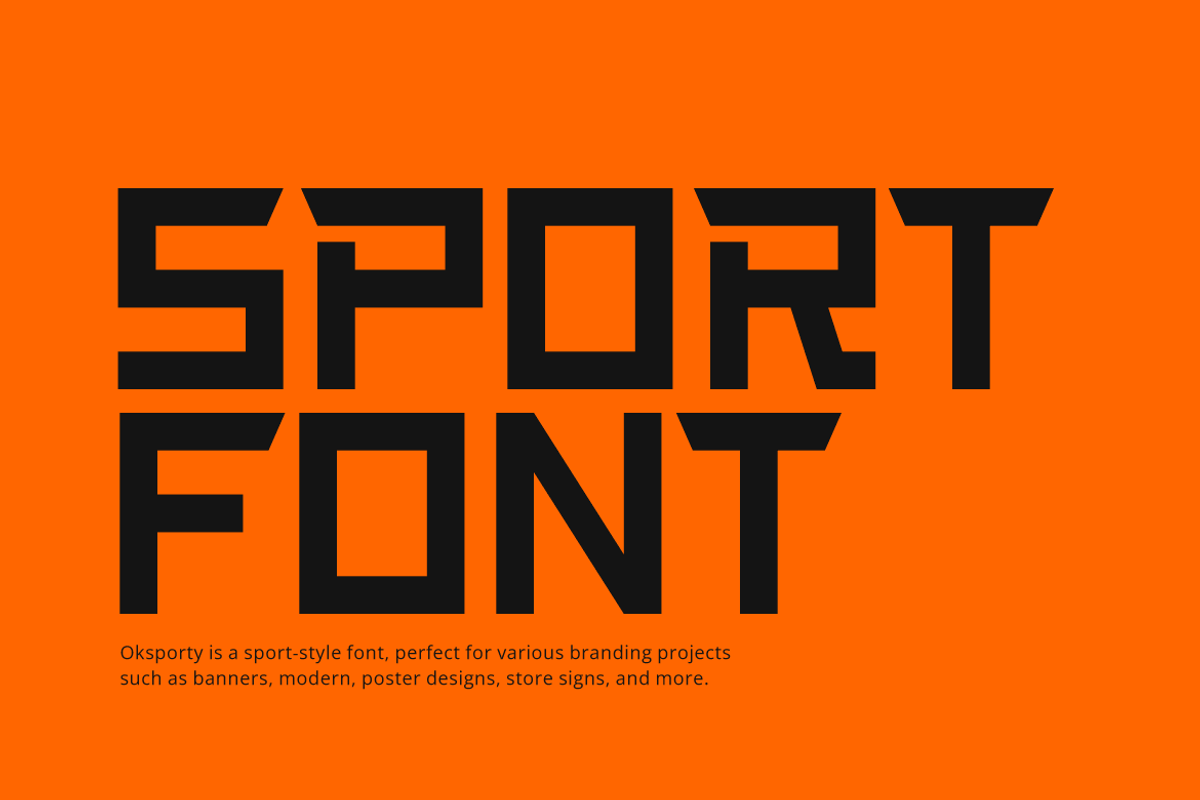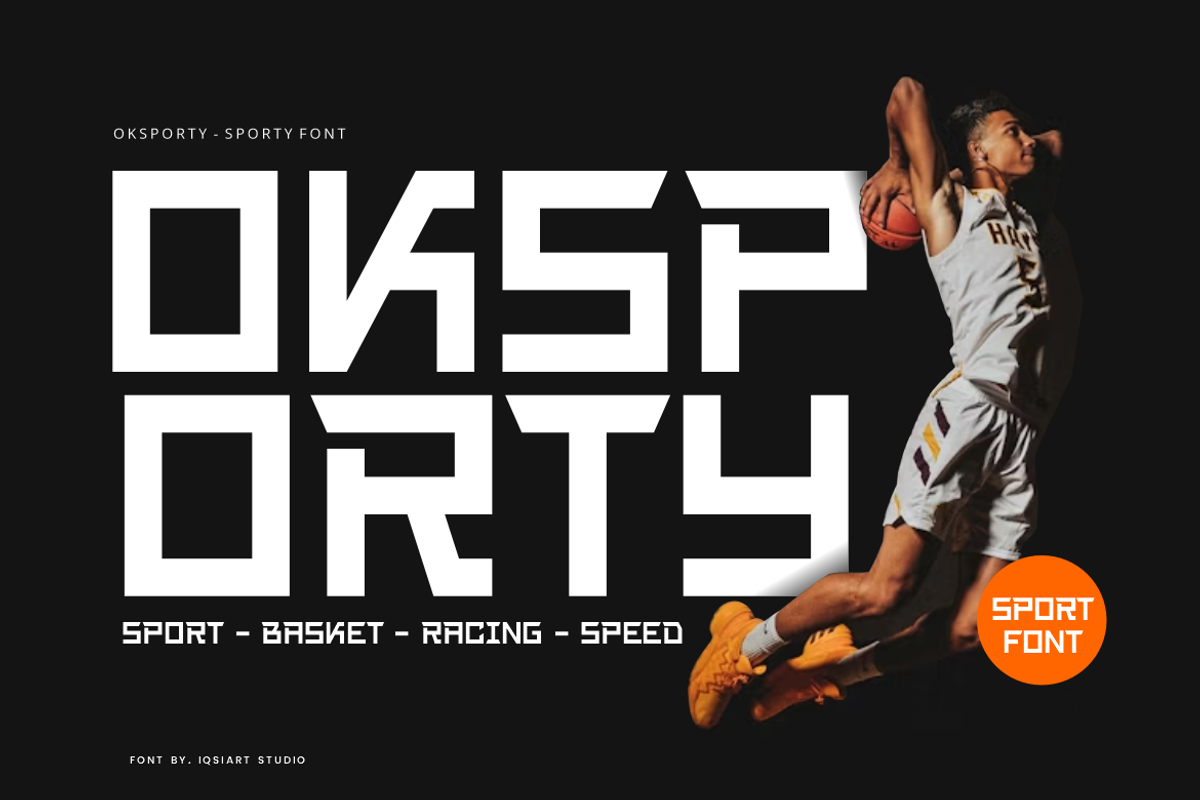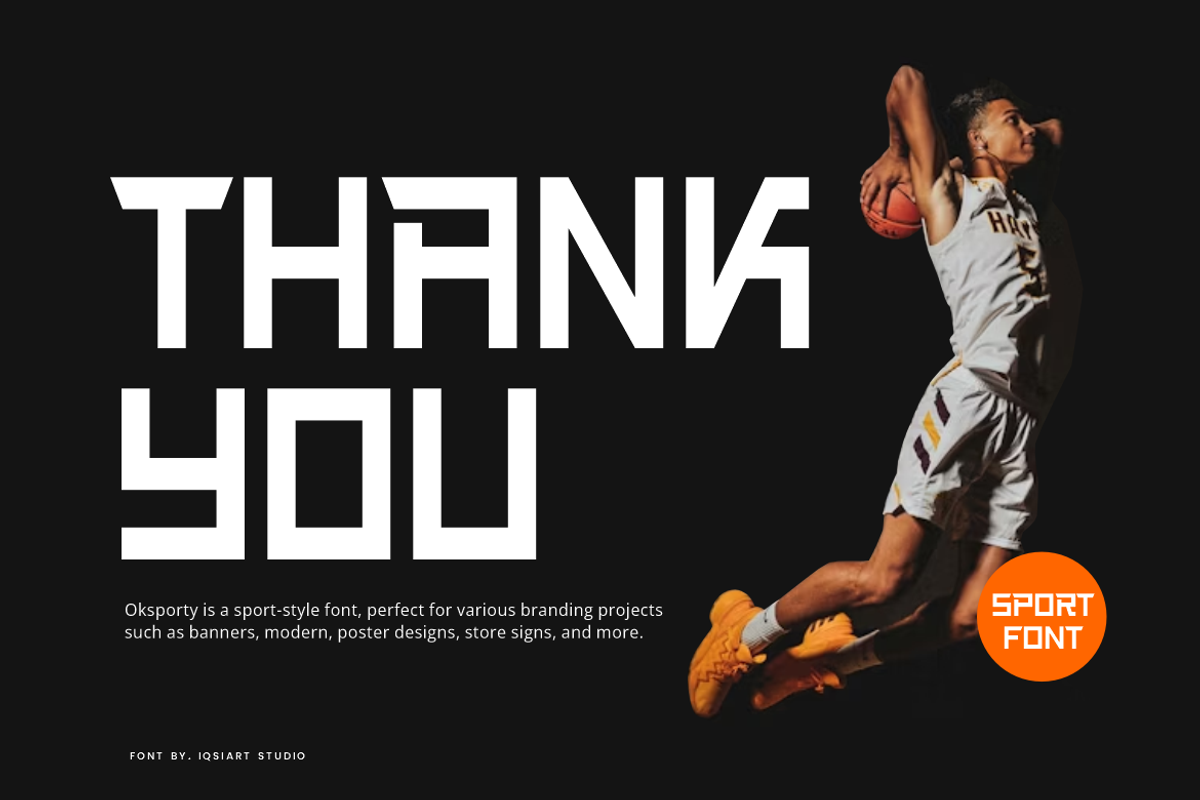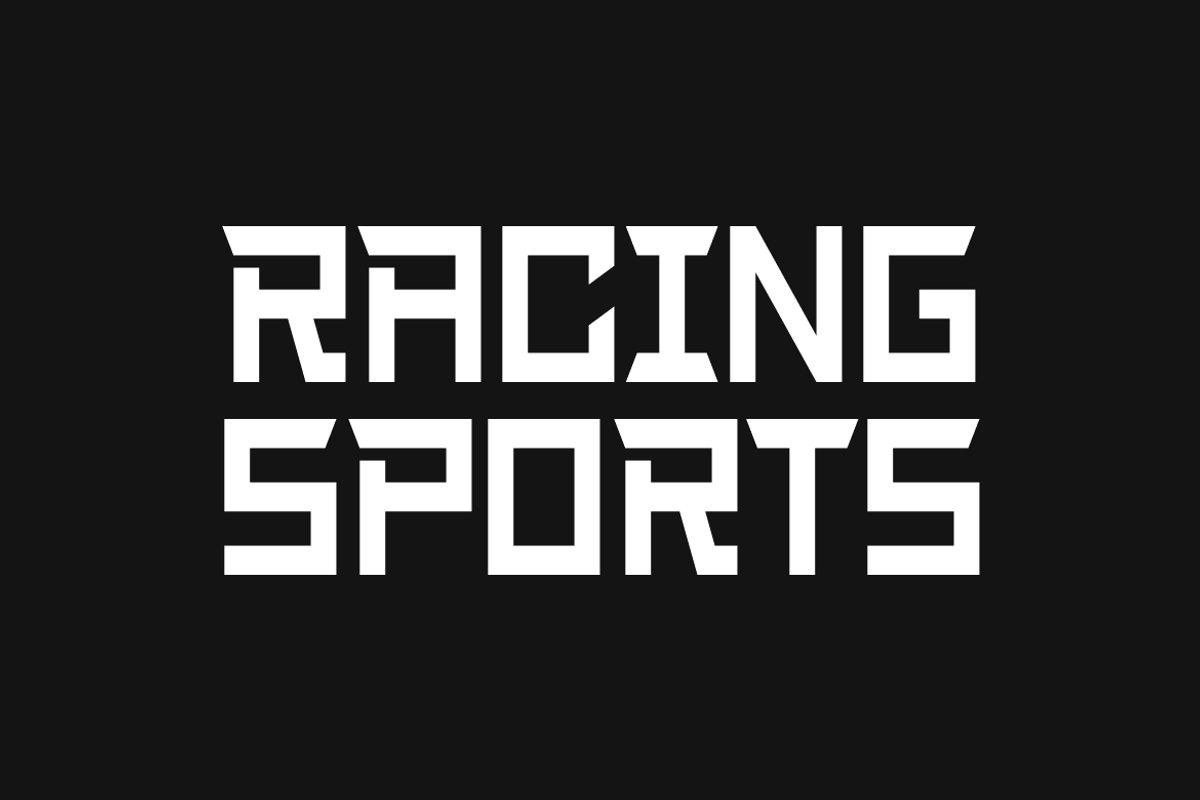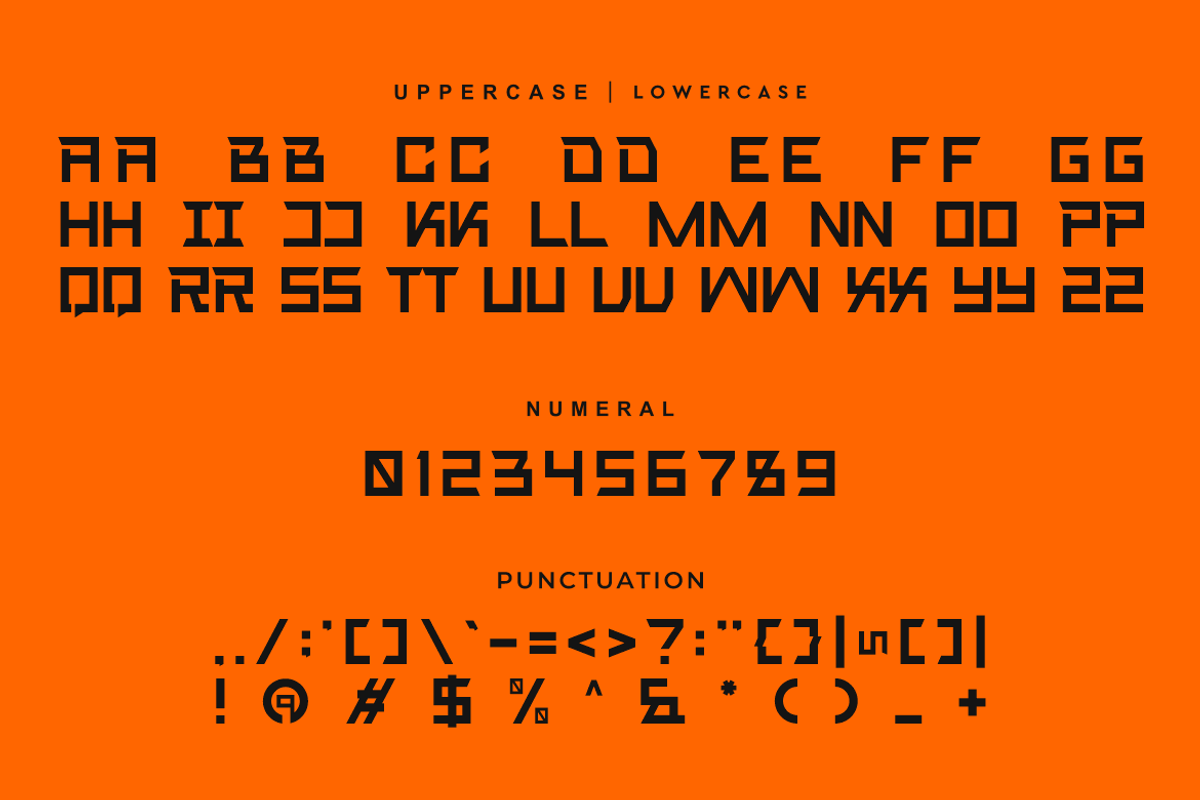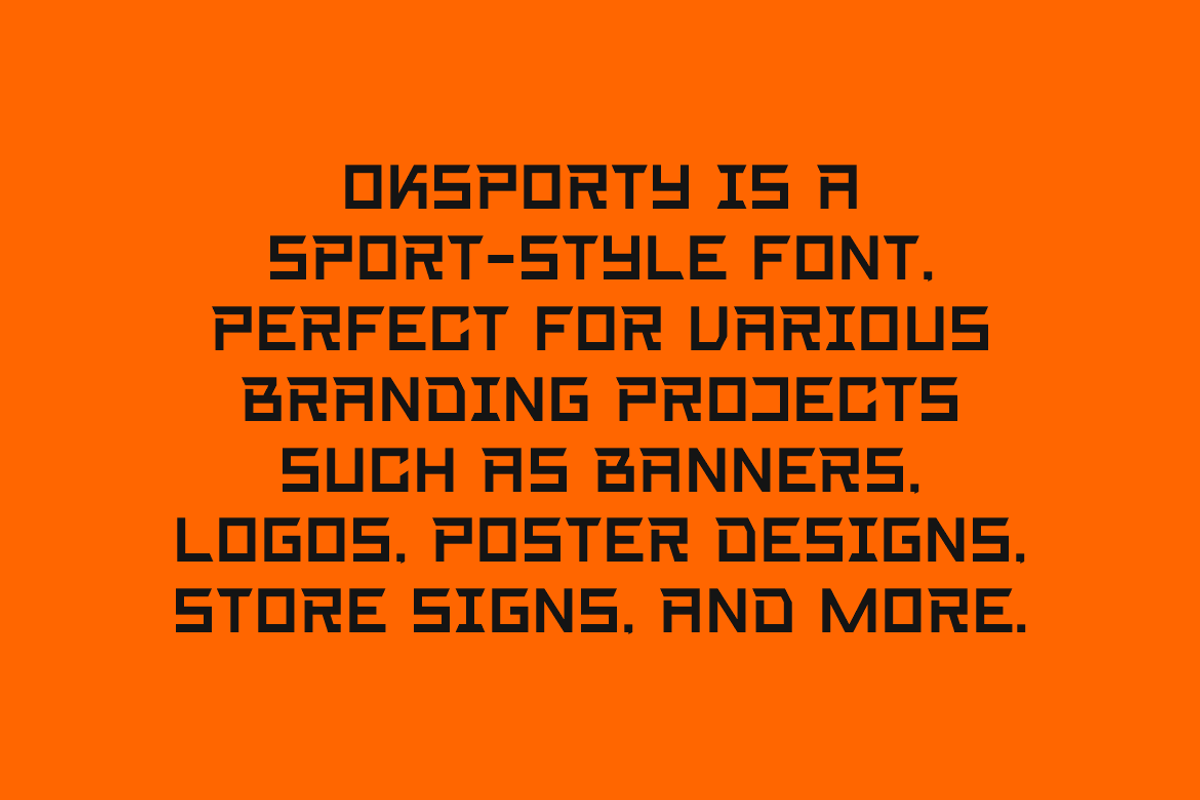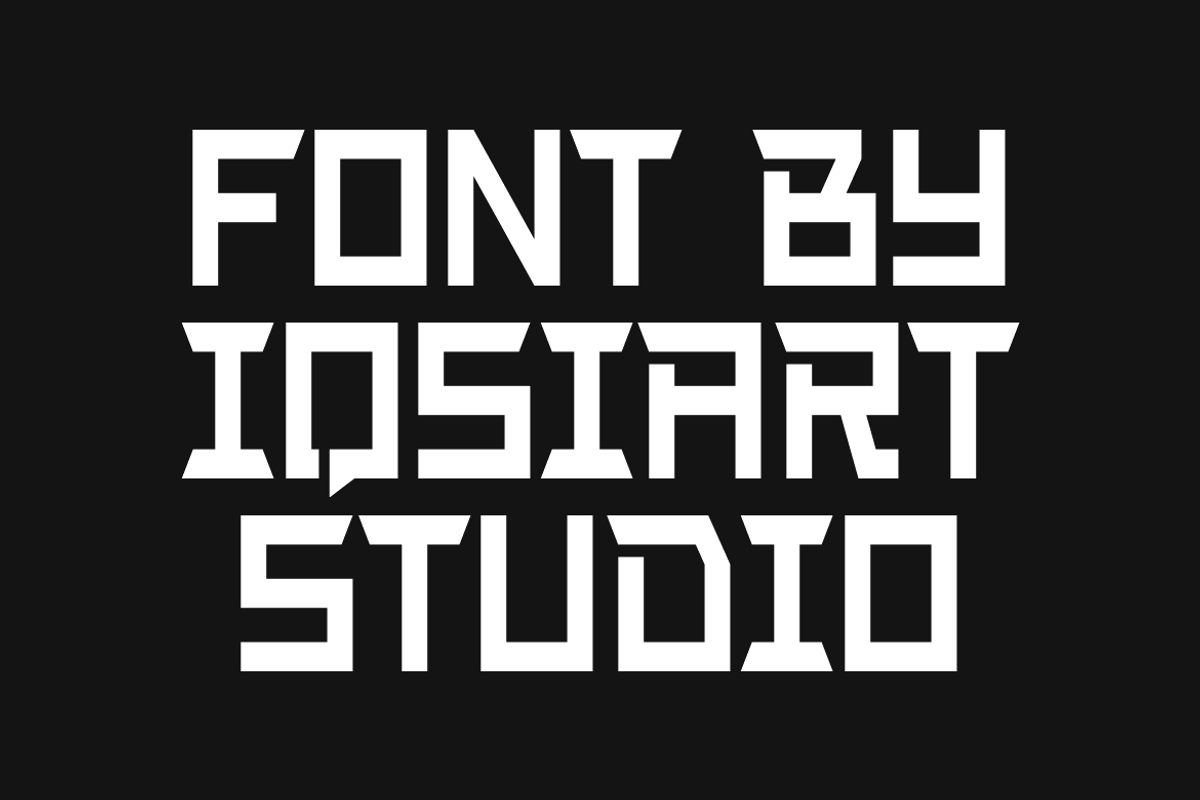
Oksporty - Sport Font
Oksporty Font is a bold and authentic display typeface that suits a variety of design needs. We offer a wide range of themes and font styles — visit our profile to explore more and find the perfect style for your project.